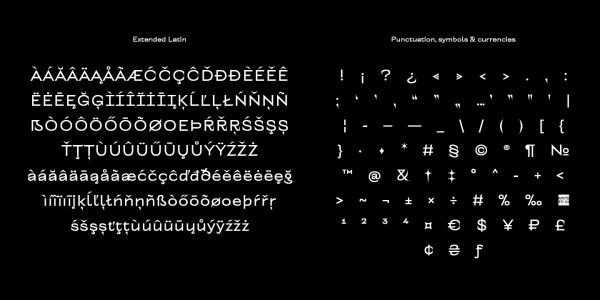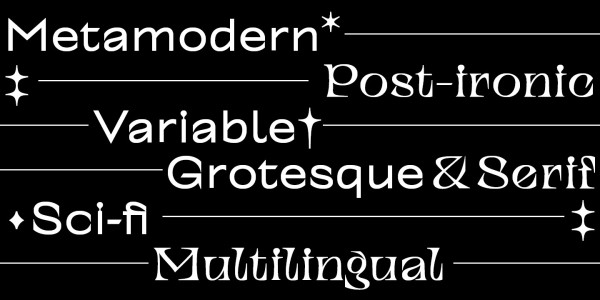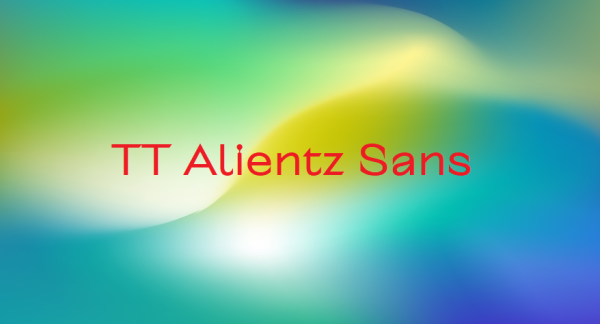
TT Alientz Sans Font
TT Alientz Sans Font is a Sans Serif Font in the TT Alientz Font Family. It is a variable typeface that allows the user to make a visual journey from a laconic extraterrestrial grotesque to a very prickly display serif. As part of this project, we decided to investigate the influence of a foreign substance and the consequent transformation of the original forms, which ultimately leads to extreme visual changes.
The TT Alientz family consists of 3 fonts: grotesque, serif and variable* font. Each font contains more than 470 glyphs. In addition to broad language support (including Cyrillic), the typeface has stylish ligatures, contextual alternates, and old-style figures. Variability in the typeface affects the changes in the overall style of the font—moving the slider to adjust the variable axis, you can go from a laconic grotesque to an extreme serif.
TT Alientz Grotesque is a fairly neat hipster grotesque, but with its own small features. In the design of some letters of the grotesque you can find small sharp elements that add uniqueness and character to the font when used in large inscriptions and headings. At the same time, when you use the font in a small size of the size and in text blocks, sharp elements do not greatly affect its readability. The design of some letters of the grotesque is quite peculiar and is intended to emphasize the initial concept of slight ‘alienness’.
TT Alientz Serif is an ‘infected’ TT Alientz Grotesque and the result of changes to it. Unlike the grotesque, the serif is dynamic, viscous, ductile and very prickly. Serif has a lot of smooth lines and not quite standard strokes contrast. It can be noted that most serifs in the antiqua are pointed inward, not outward. Despite its extremeness, the serif will look good both in large and in small body sizes.